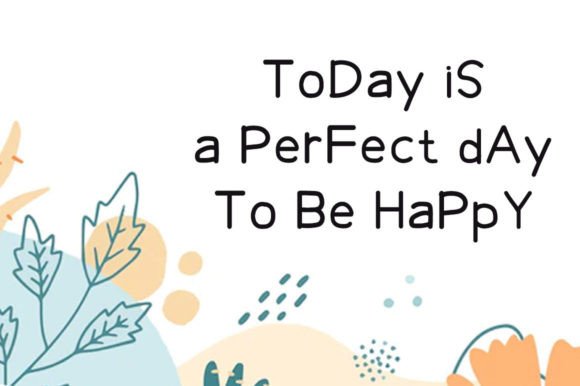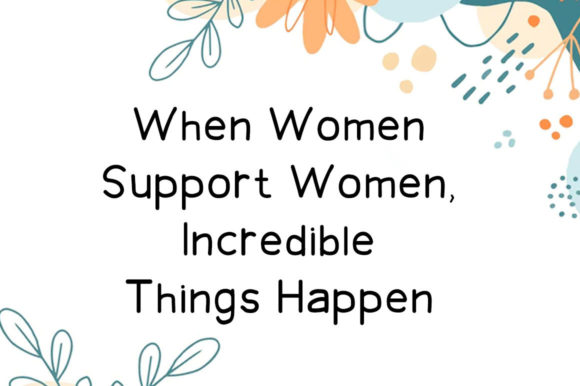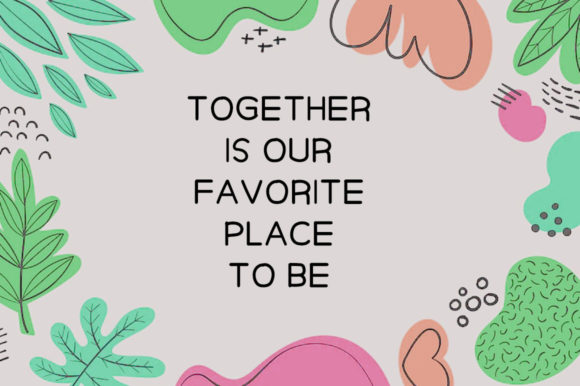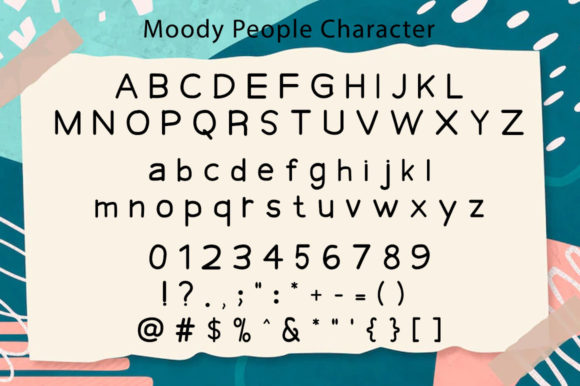
Introduction to Moody People Font
Moody People is a cute and casual handwritten font that will look outstanding in any context.
Whether youโre looking for fonts for Instagram or calligraphy scripts for DIY projects, this font will turn any creative idea into a true piece of art Moody People is great for logos, headings, t-shirts, letterheads, signage, labels, news, posters, badges, etc.
Key Features of Moody People Font